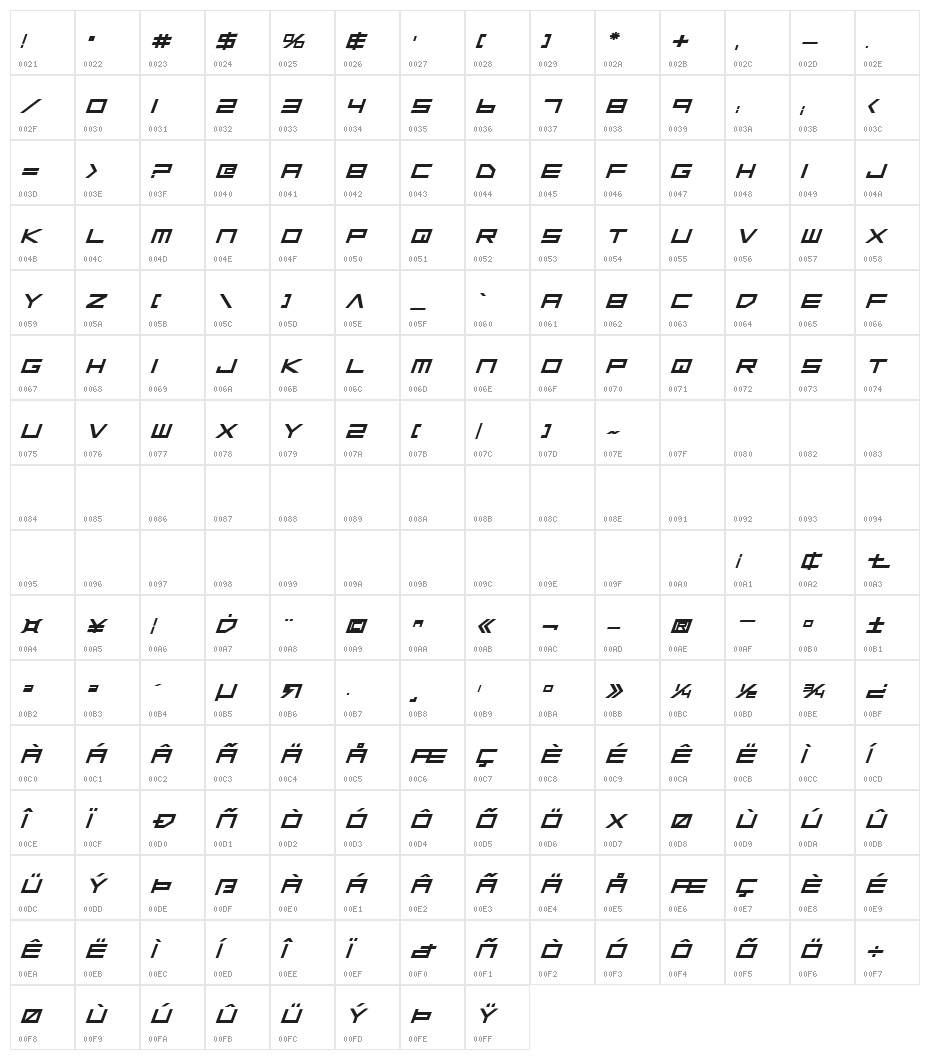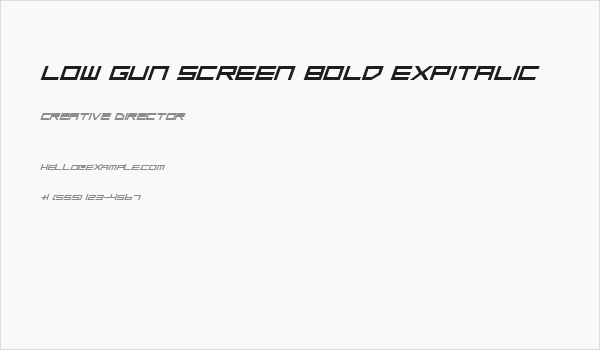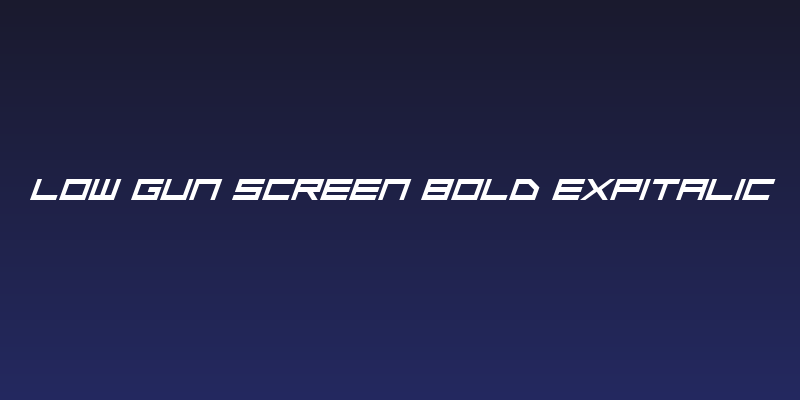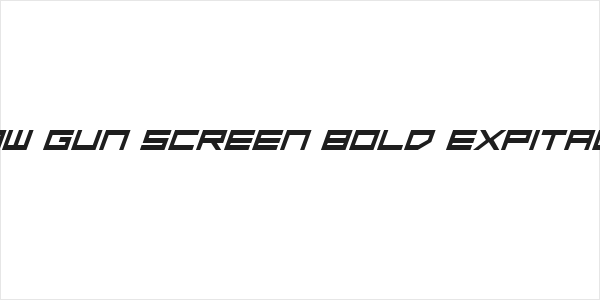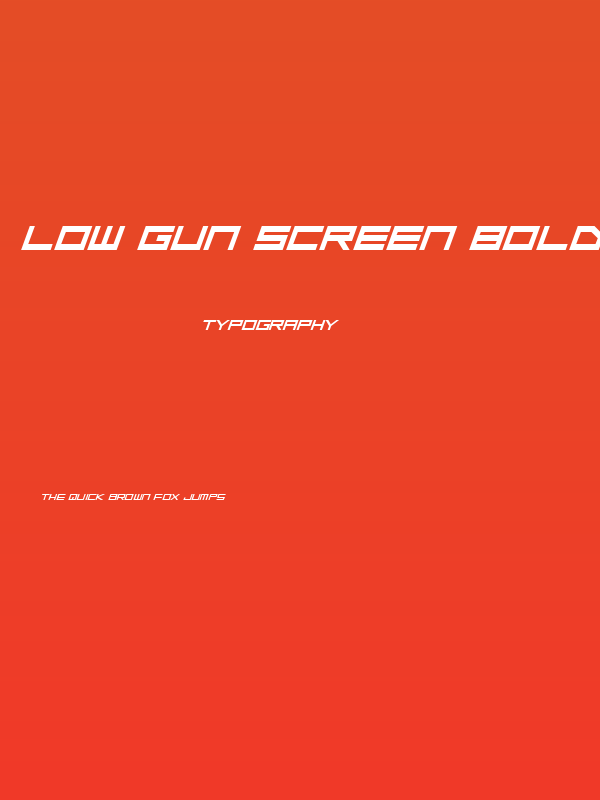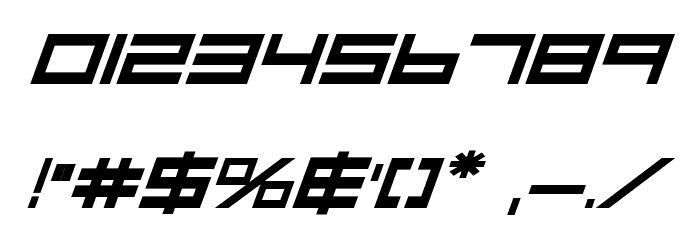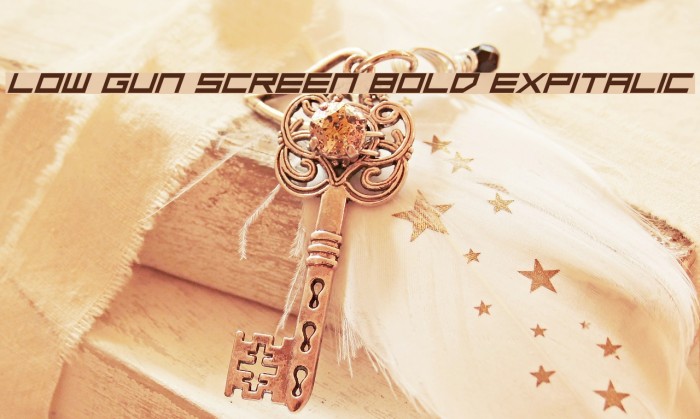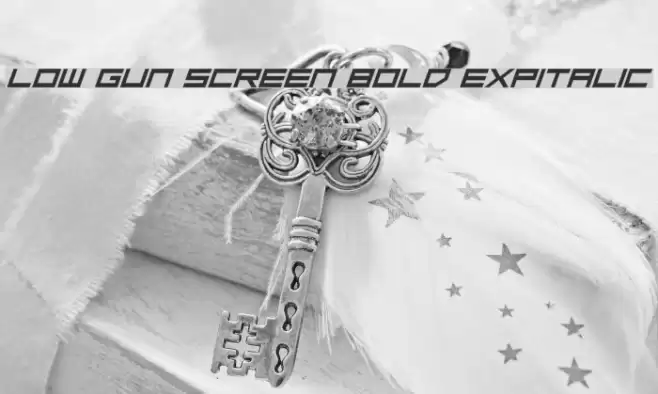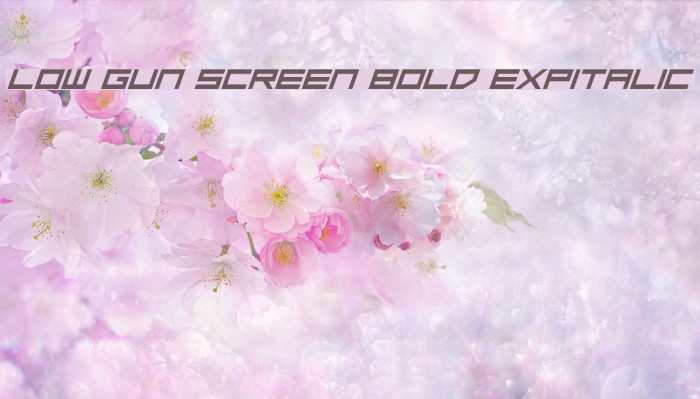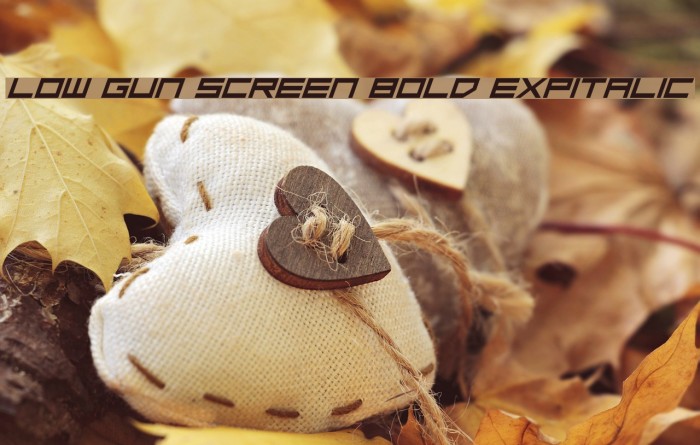
Low Gun Screen Bold ExpItalic Font
Low Gun Screen Bold ExpItalic Description
This font features a bold and dynamic style with a futuristic and angular design. The characters are slanted, giving an italicized appearance that enhances its modern look. The strokes are thick and consistent, providing a strong visual impact. The geometric shapes and sharp edges contribute to its tech-inspired aesthetic, making it ideal for projects that require a contemporary and edgy feel. The font maintains a consistent weight throughout, ensuring readability while adding a unique flair to each character. Its distinctive style is suitable for attention-grabbing headlines and creative designs.
| Proposed Projects | Ideal for tech-related branding, sci-fi posters, video game titles, and modern advertising. |